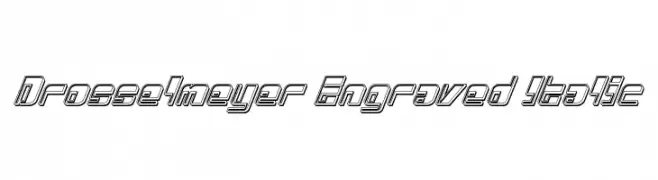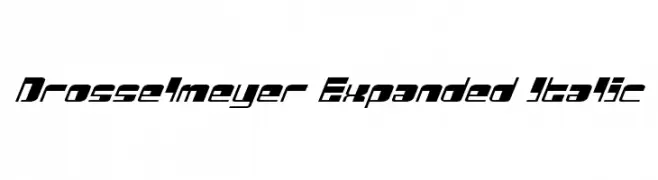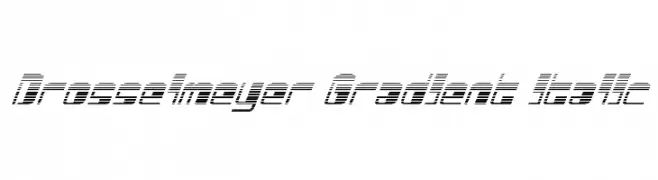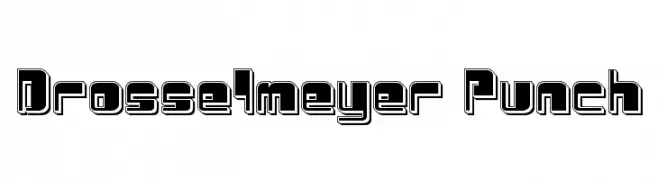
A bold, engraved italic font with a modern, dynamic style.
A bold, expanded italic font with a futuristic and dynamic style.
A modern, geometric font with a gradient effect created by horizontal lines.
A futuristic italic font with a gradient effect created by horizontal lines.
A bold, geometric font with a halftone effect and futuristic style.
A bold, italicized font with a futuristic halftone effect.
A bold, geometric font with a futuristic, stencil-like design.
A bold, italic, futuristic font with sharp, angular lines and a dynamic style.
A bold, angular font with a leftward slant and a futuristic style.
A bold, geometric font with a 3D effect and thick outlines.